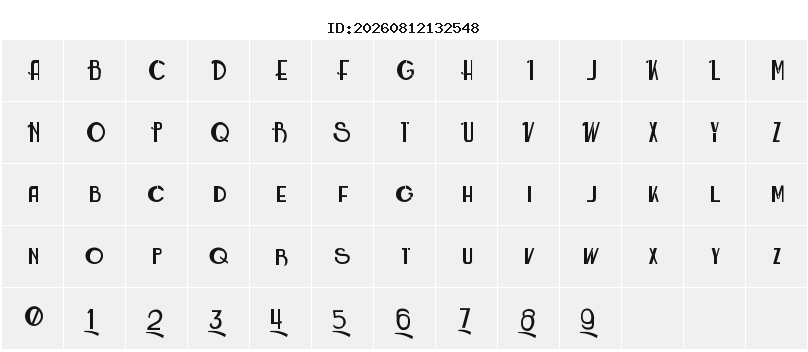
• Font Name: Roarin' Twenties Counterfeit
• Designer: James Barnardo
About Roarin' Twenties Counterfeit.ttf
Roarin' Twenties Counterfeit.ttf is a modern, elegant sans-serif font designed for ultimate readability and visual harmony. Perfect for branding, headlines, web design, and print materials.